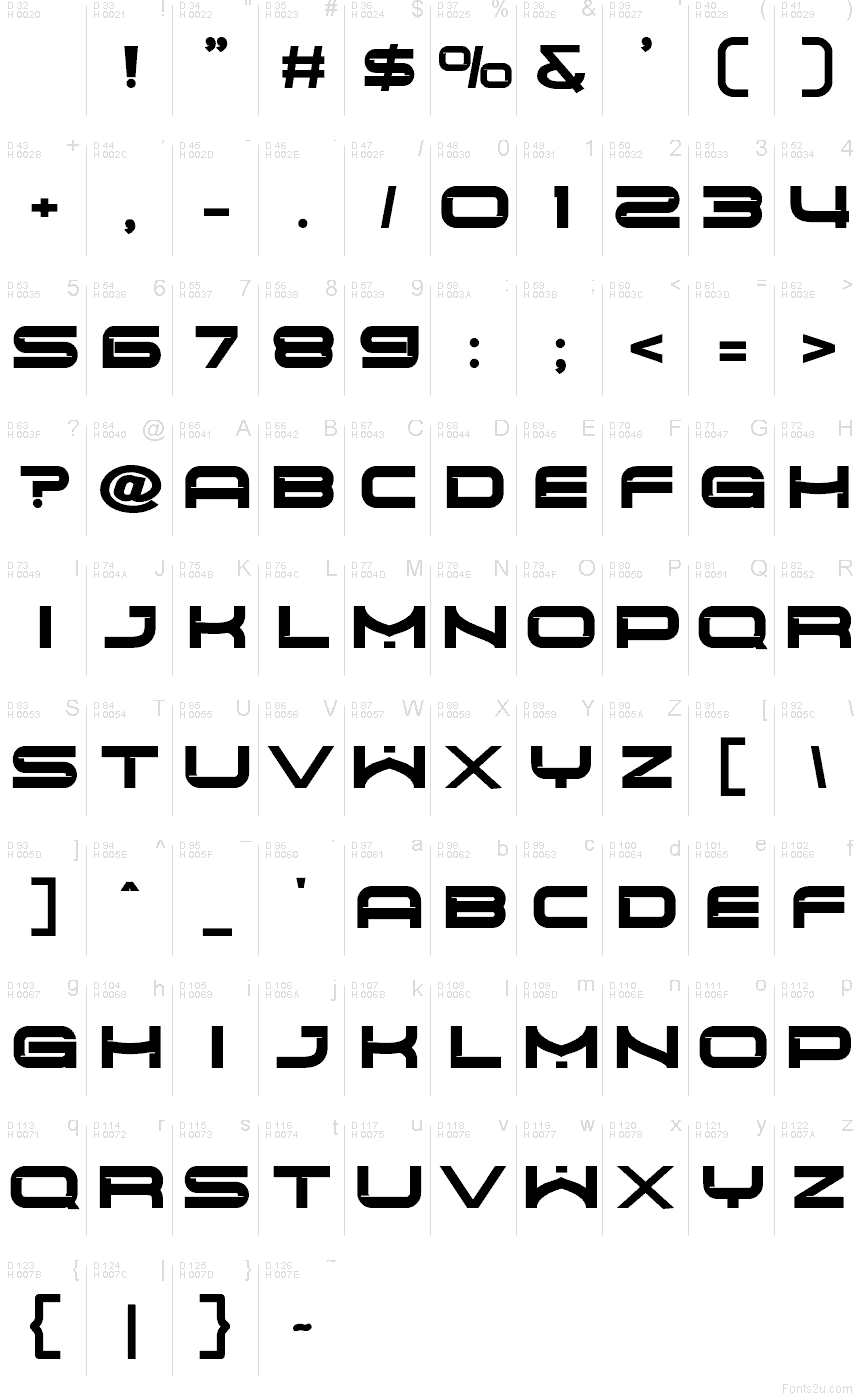
Womes font by Setyo Wati is a free techno display typeface that fuses chunky, monospaced-style letters with smooth, rounded counters and sliced-off edges. Its modular, almost machine-cut forms feel engineered-those squared bowls and clipped horizontal bars look like they’ve been milled from metal, giving every word a cold, futuristic glow. The tight rhythm and consistent stroke weight keep even the most experimental layouts feeling controlled and deliberate.
Using Womes, this free font, you can push bold visuals for sci-fi posters, esports logos, DJ or club flyers, tech product branding, streaming overlays, and striking album covers. It holds up especially well in large titles where the geometric cuts really show. For supporting text, pair it with a clean geometric sans in a lighter weight and let Womes handle the loud, attention-grabbing headlines.